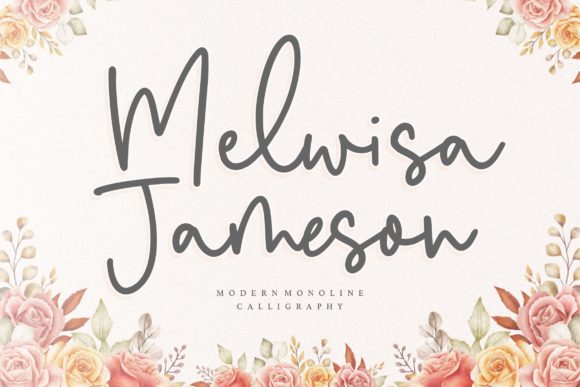
Step into the world of Melwisa Jameson, a script font that dances across the page with elegance and poise. Designed by the talented Balpirick, this font is a symphony of flowing lines and graceful curves, perfect for adding a touch of sophistication to your creative projects.
Melwisa Jameson is more than just a font; it's an experience. Its varying baseline and smooth lines create a dynamic rhythm that draws the eye and invites the reader to linger. The gorgeous glyphs and stunning alternates add depth and dimension, making your words come alive on the page.
Whether you're a blogger, a designer, or simply someone who loves to express themselves through words, Melwisa Jameson is the perfect font for you. Its timeless style and universal appeal make it suitable for a wide range of projects, from personal blogs and social media posts to professional presentations and marketing materials.
Imagine the impact your words will have when they're adorned with the beauty of Melwisa Jameson. Your blog posts will captivate readers, your social media posts will stand out from the crowd, and your presentations will leave a lasting impression.
With Melwisa Jameson, you have the power to transform ordinary words into extraordinary works of art. So why settle for ordinary fonts when you can have something truly exceptional? Embrace the beauty of Melwisa Jameson today and let your words shine brighter than ever before!